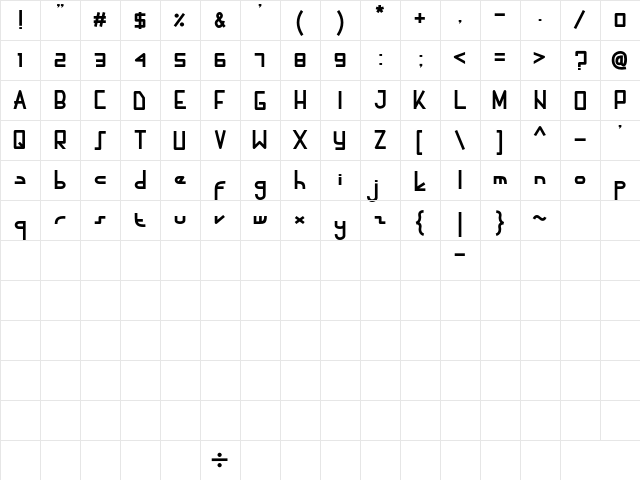
Esseintona Regular
| Designer | Hindro cholis |
Design Context for Esseintona Typeface
Esseintona takes a measured approach to typography — its balanced proportions and neutral character make it a reliable workhorse for both digital and print work.